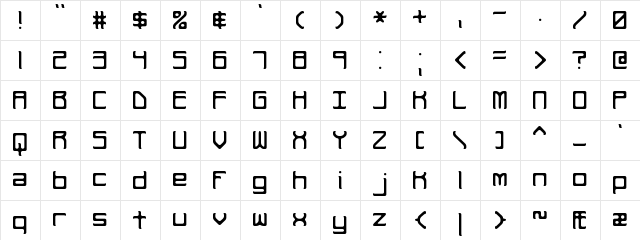
Rehearsal Curve BRK Normal Free Font
Rehearsal Curve BRK Normal
Designer: ￿IGMA FONTS - Brian Kent
Rehearsal Curve BRK Family
Design Context for Rehearsal Curve BRK
Rehearsal Curve BRK is a composed and adaptable typeface that performs quietly and consistently across a wide range of design contexts.